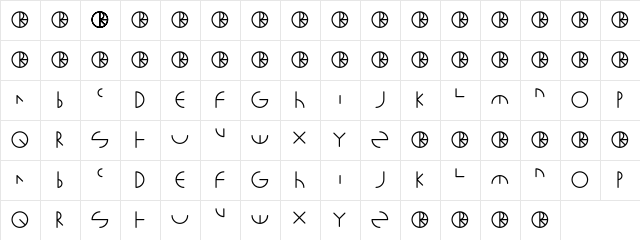
Polaroid Regular
| Foundry | POLAR |
| Designer | crusher |
Design Context for Polaroid Typeface
Polaroid offers clean, dependable letterforms without strong stylistic allegiance, making it a practical choice for designers who need flexibility.